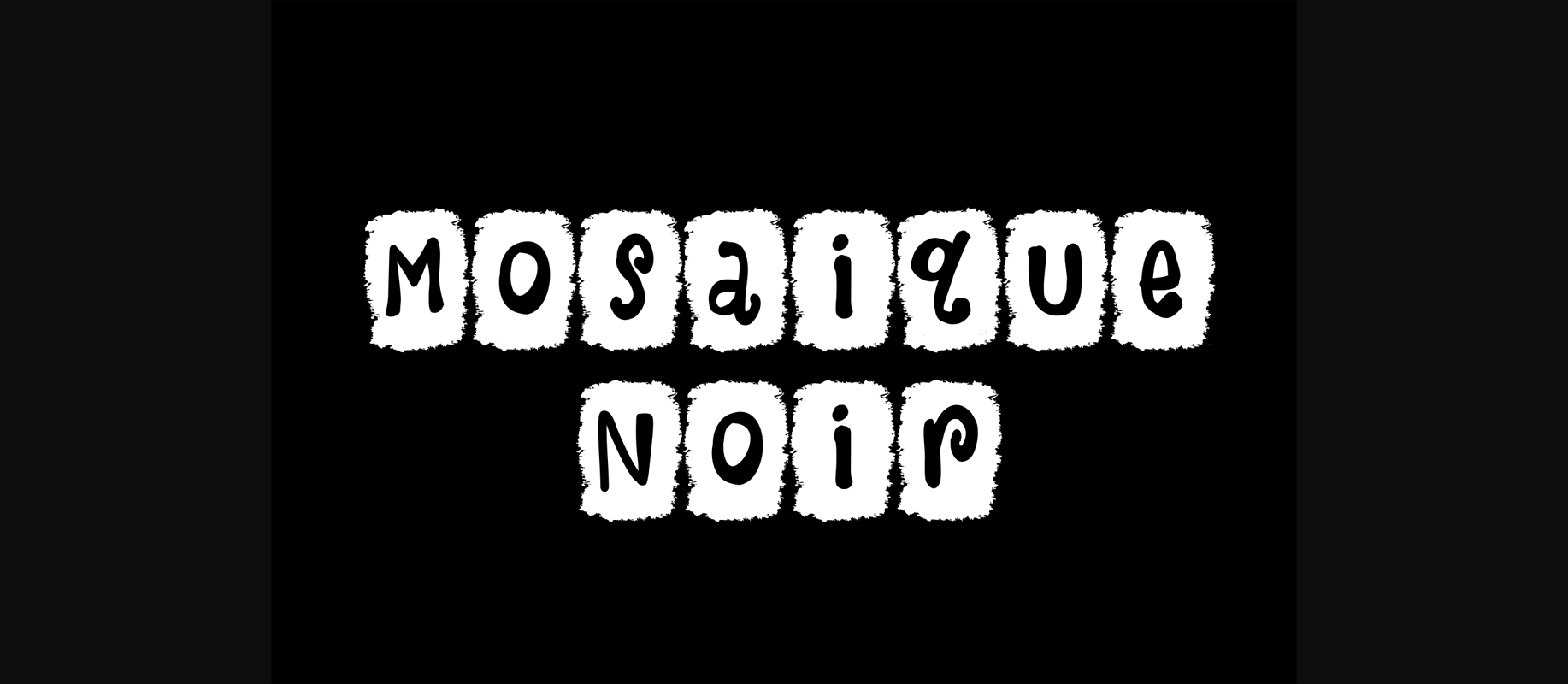
Mosaique Noir Font
About Mosaique Noir Font
The Mosaique Noir is an unique typeface. It has decorative characters which will add a striking and personal look to your designs.